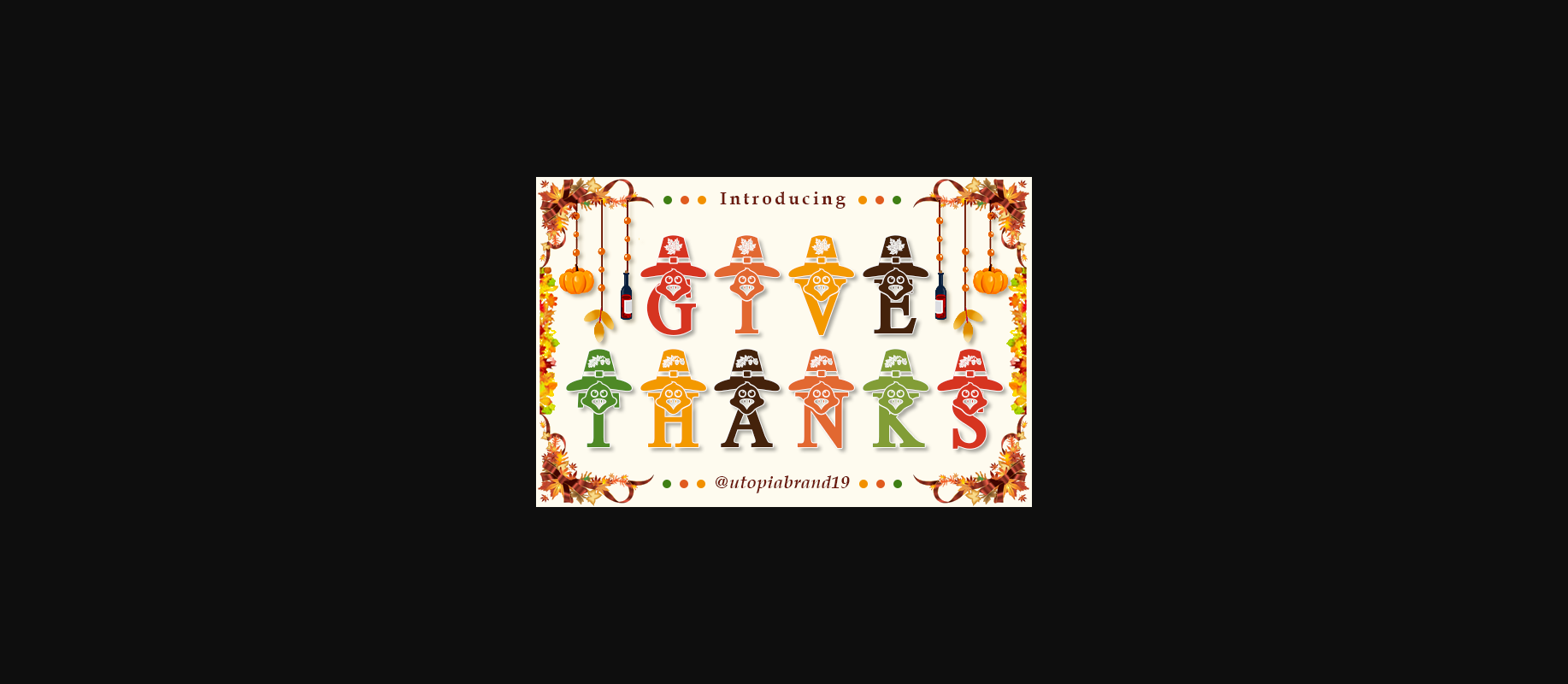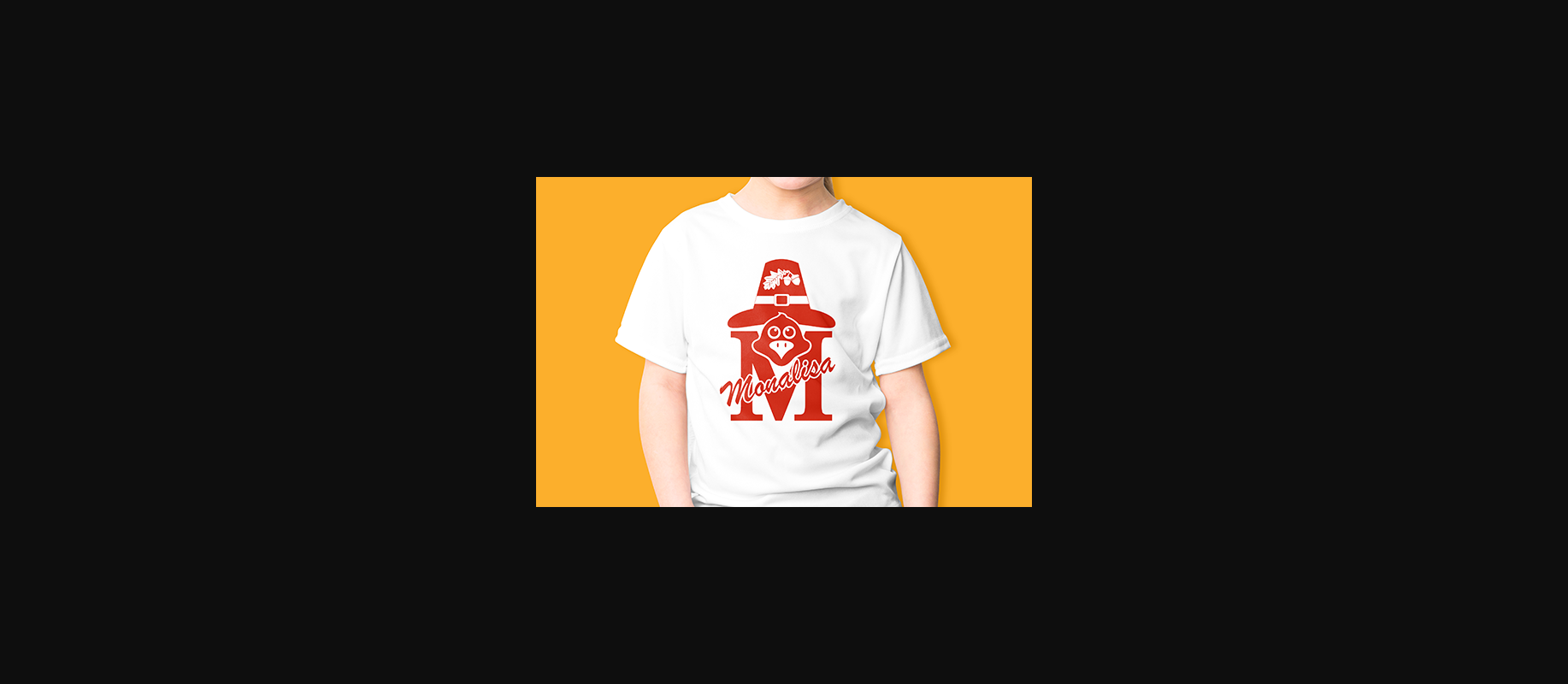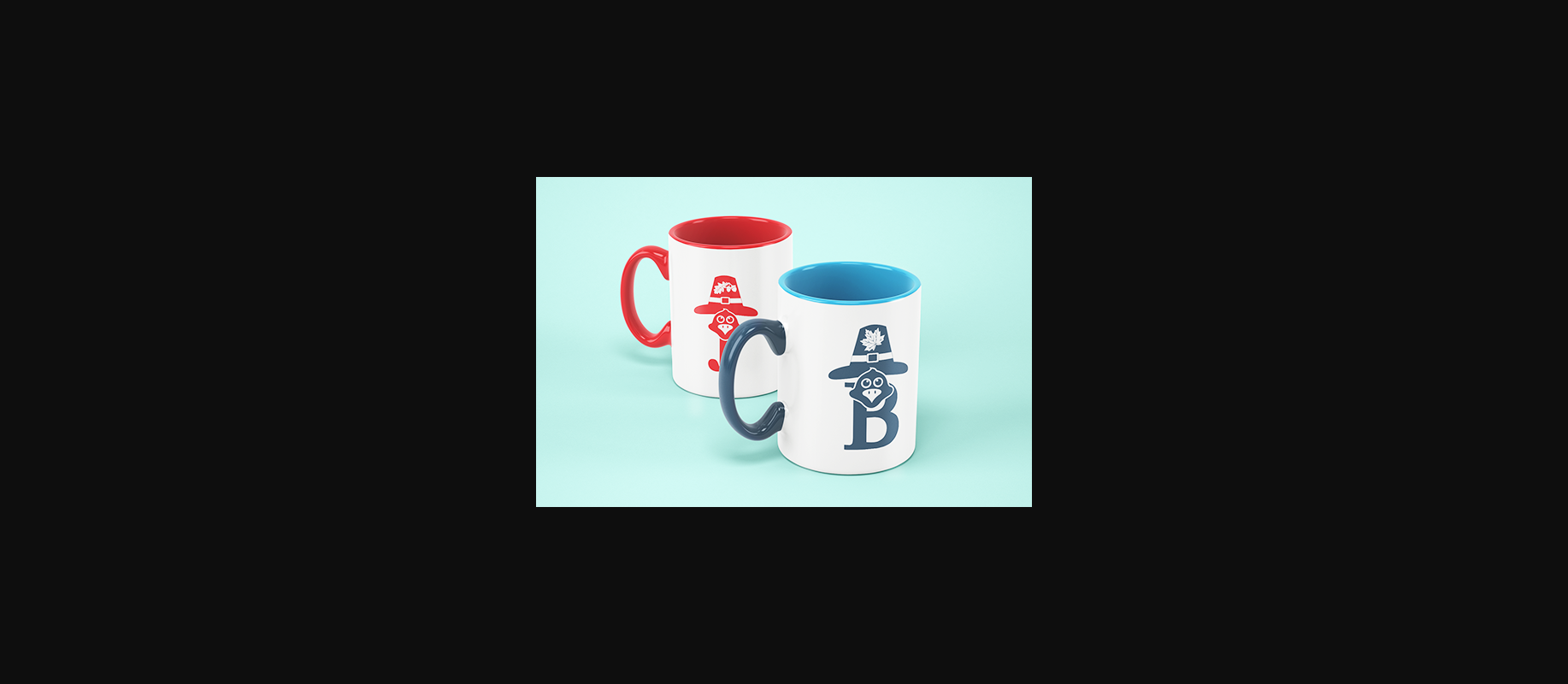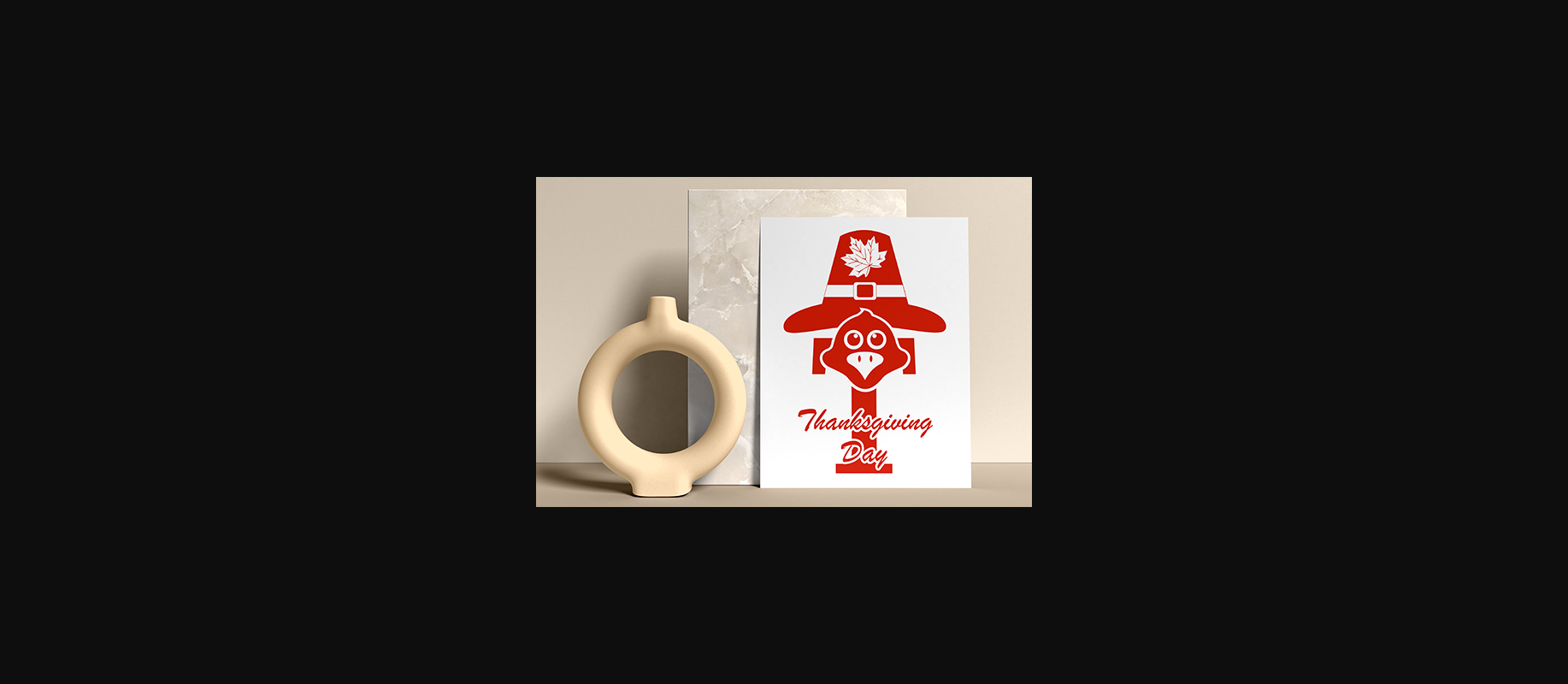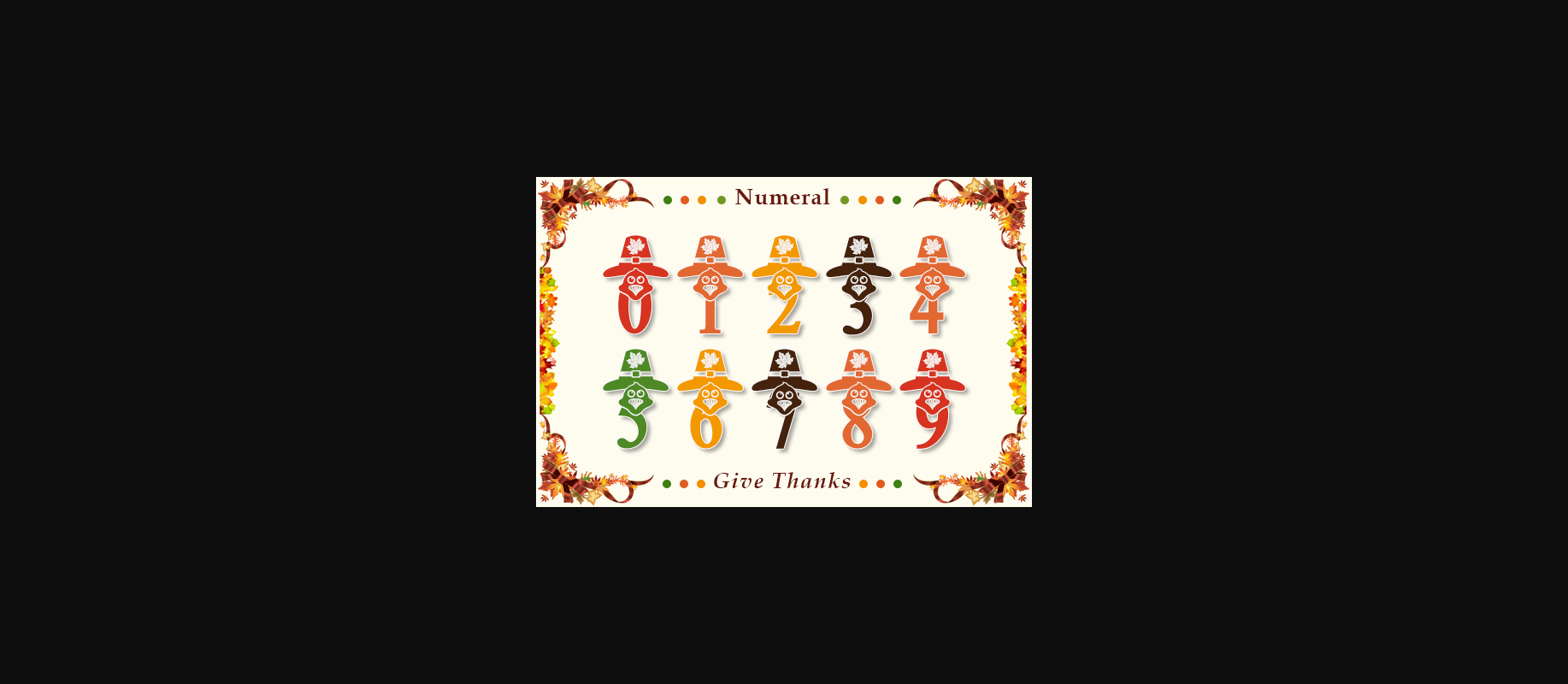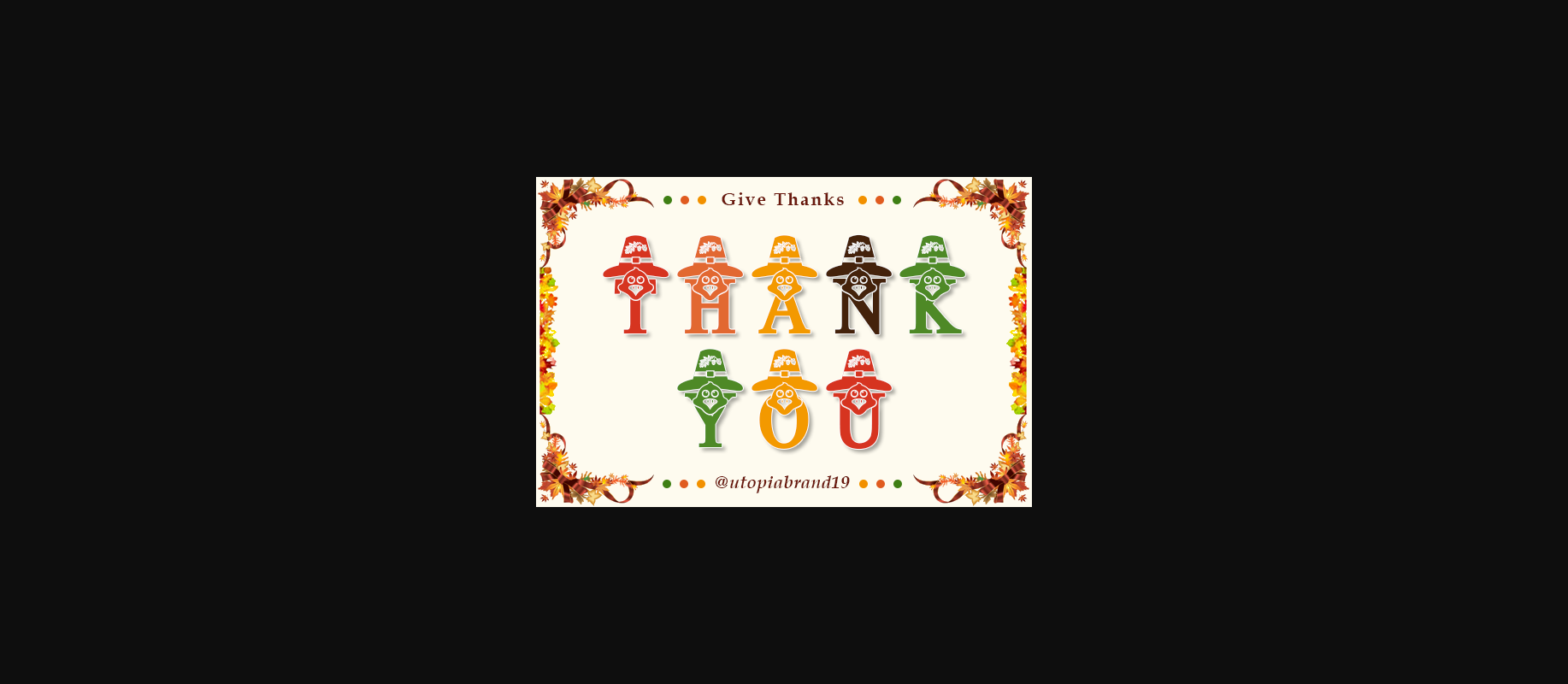
About Give Thanks Monogram Font
Give Thanks Monogram is a unique and festive decorative font. Fall for its ravishing style and use it to create gorgeous wedding invitations, beautiful stationary art, eye-catching social media posts, and much more!